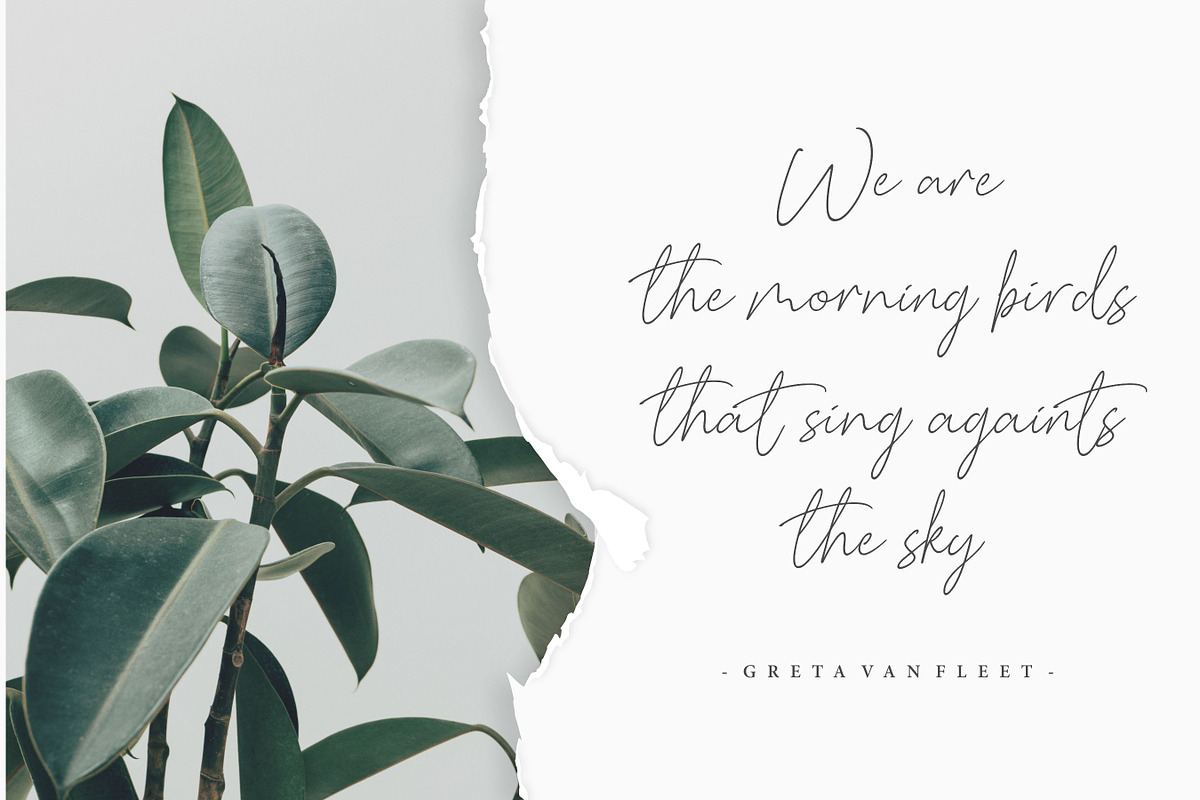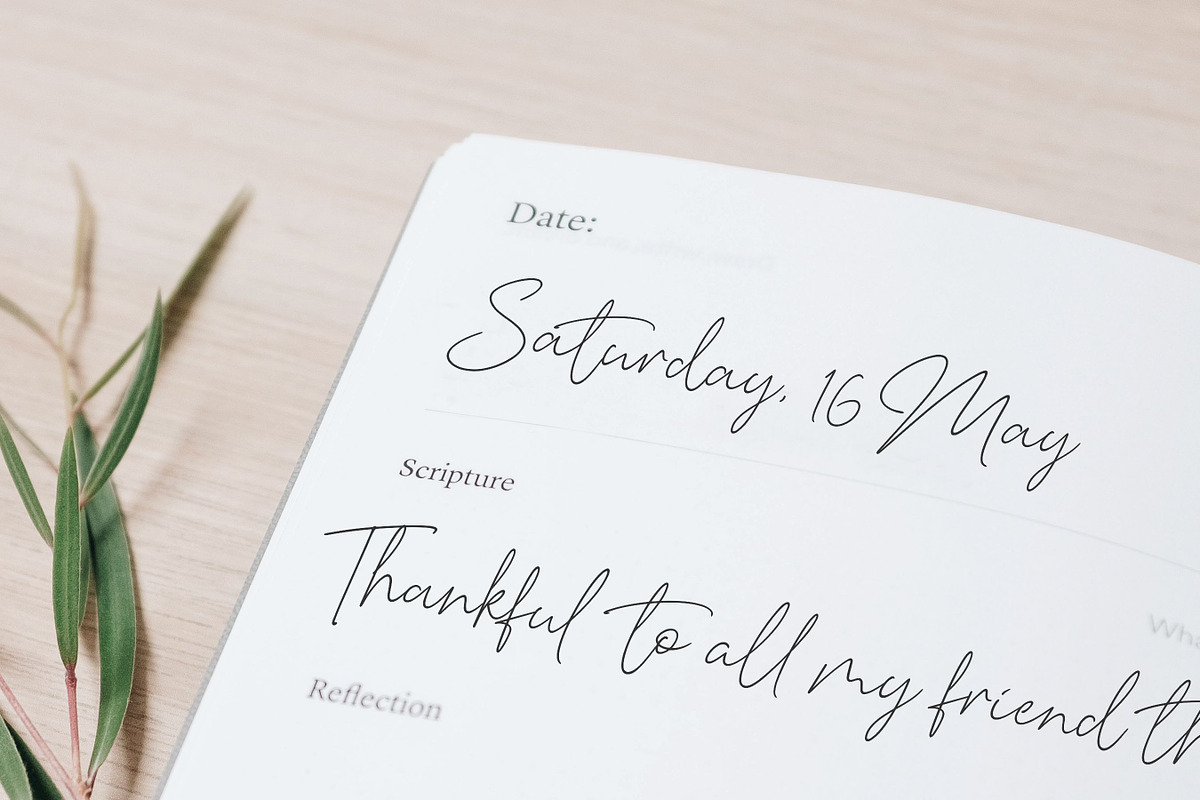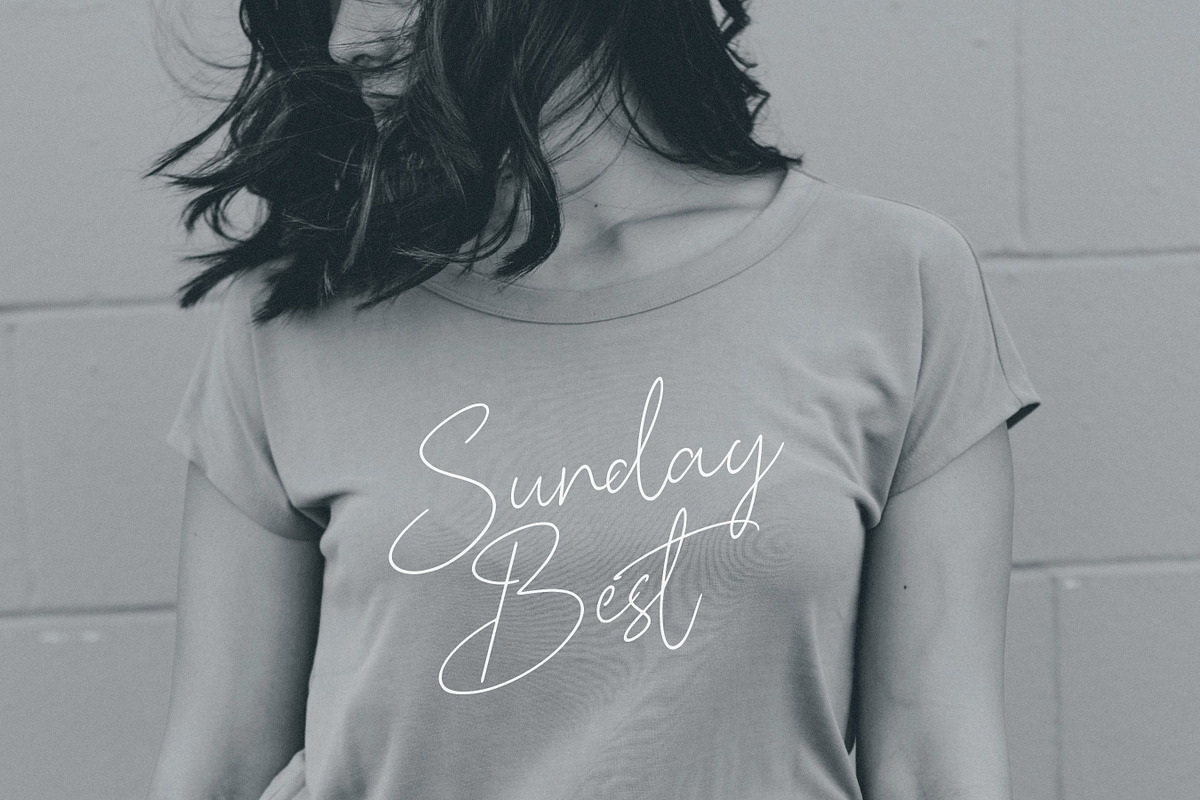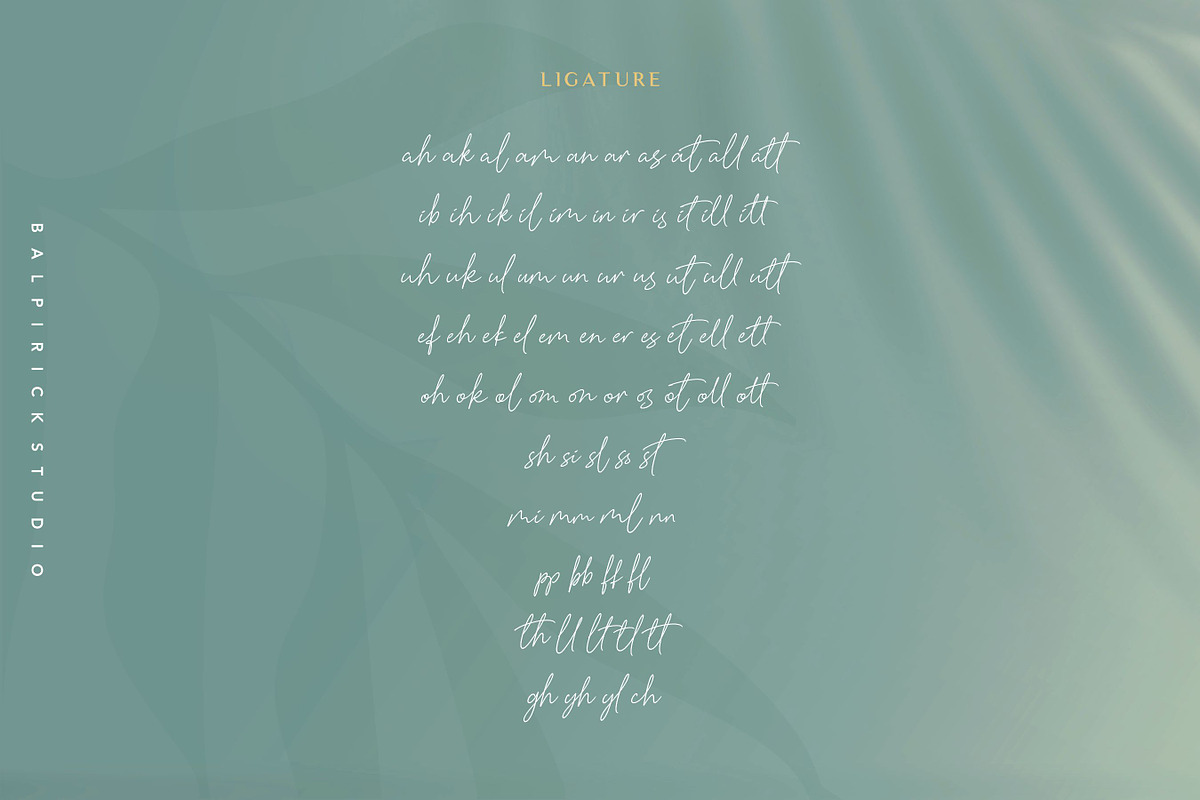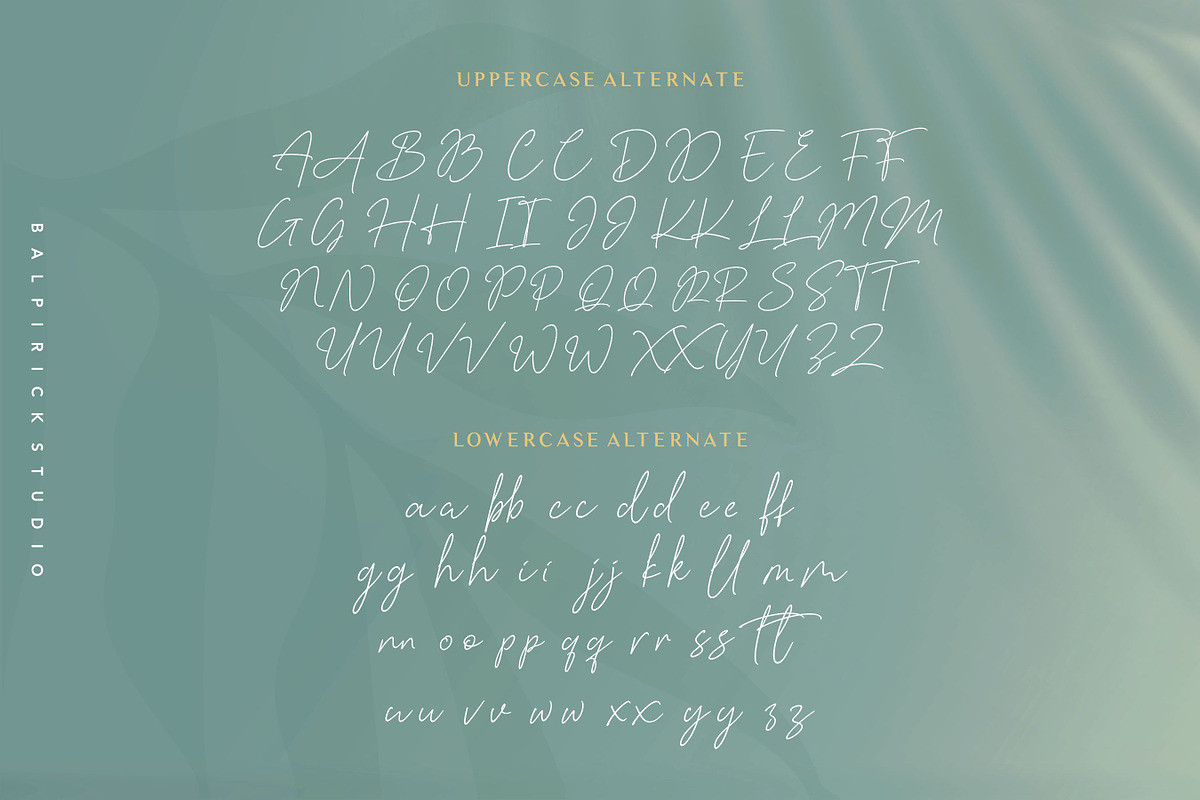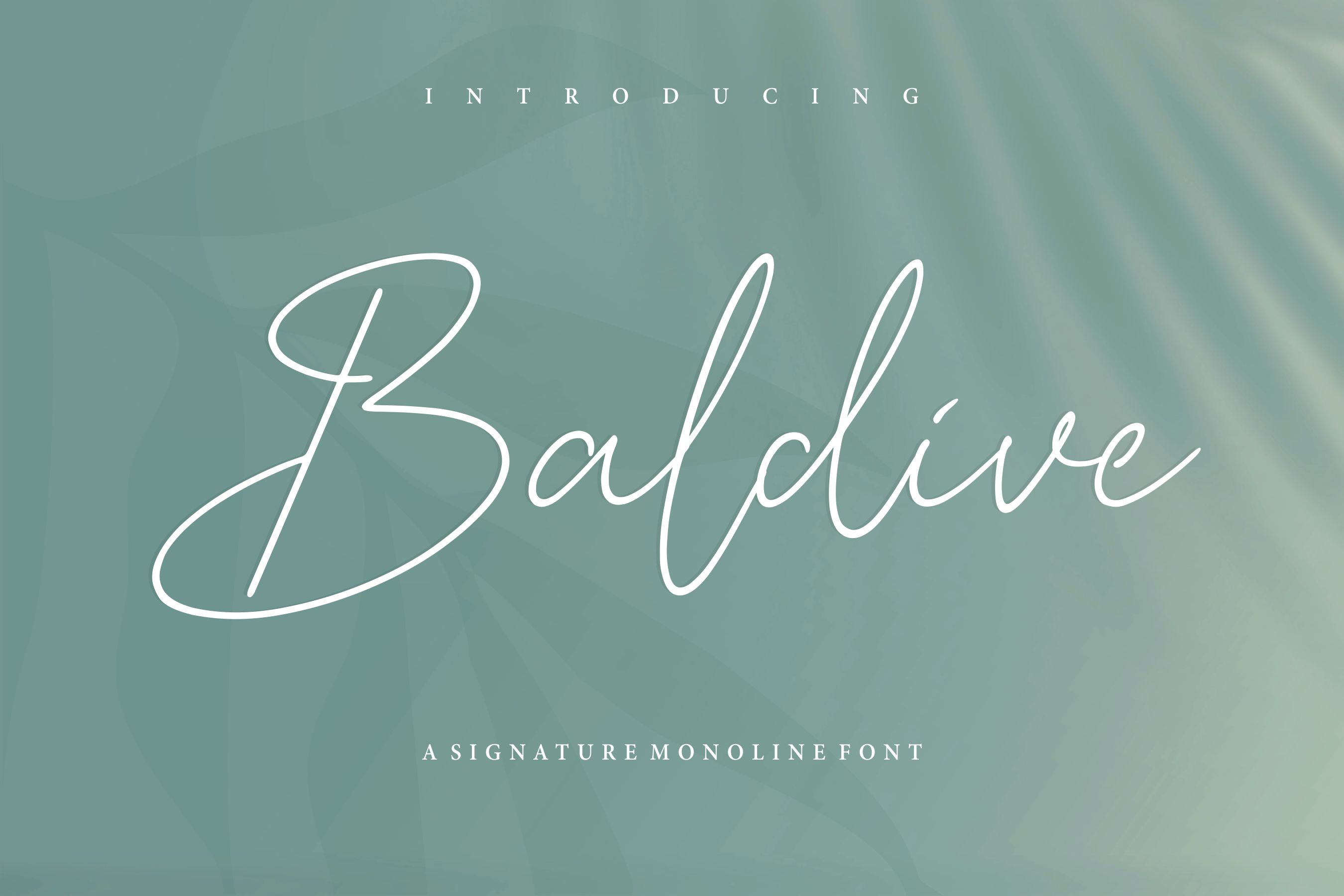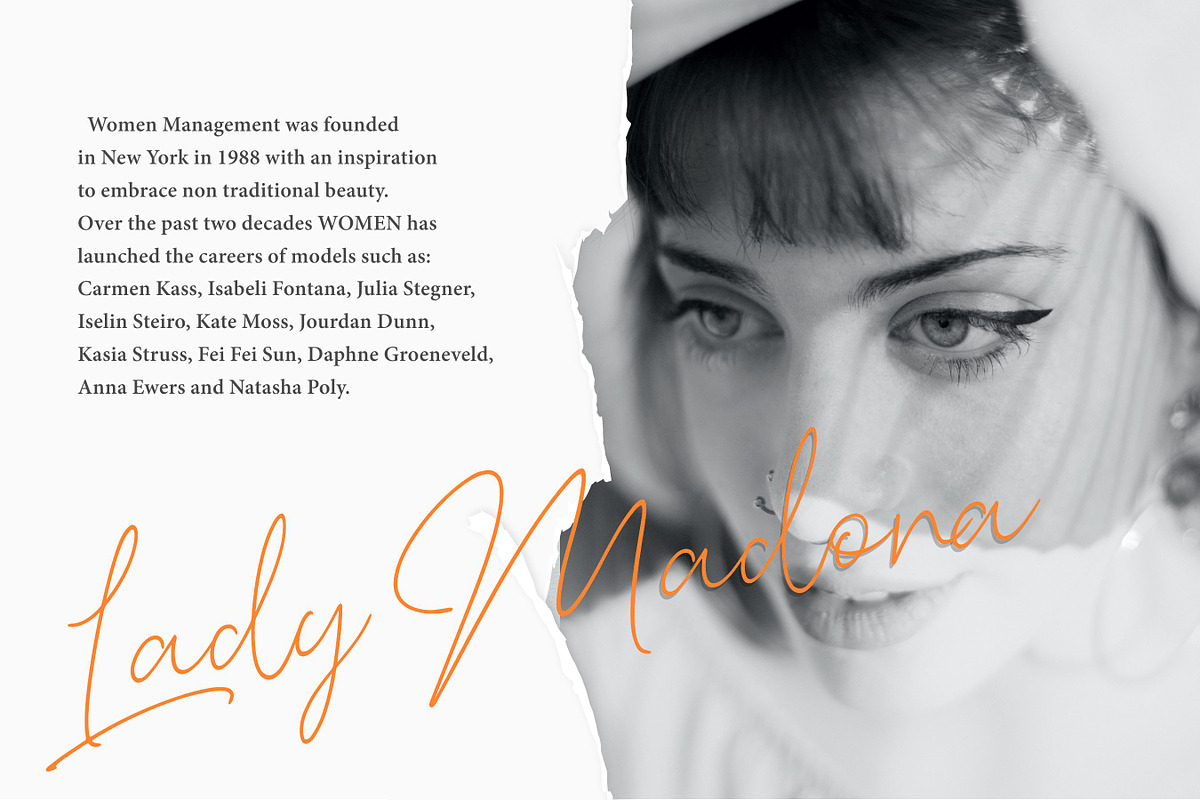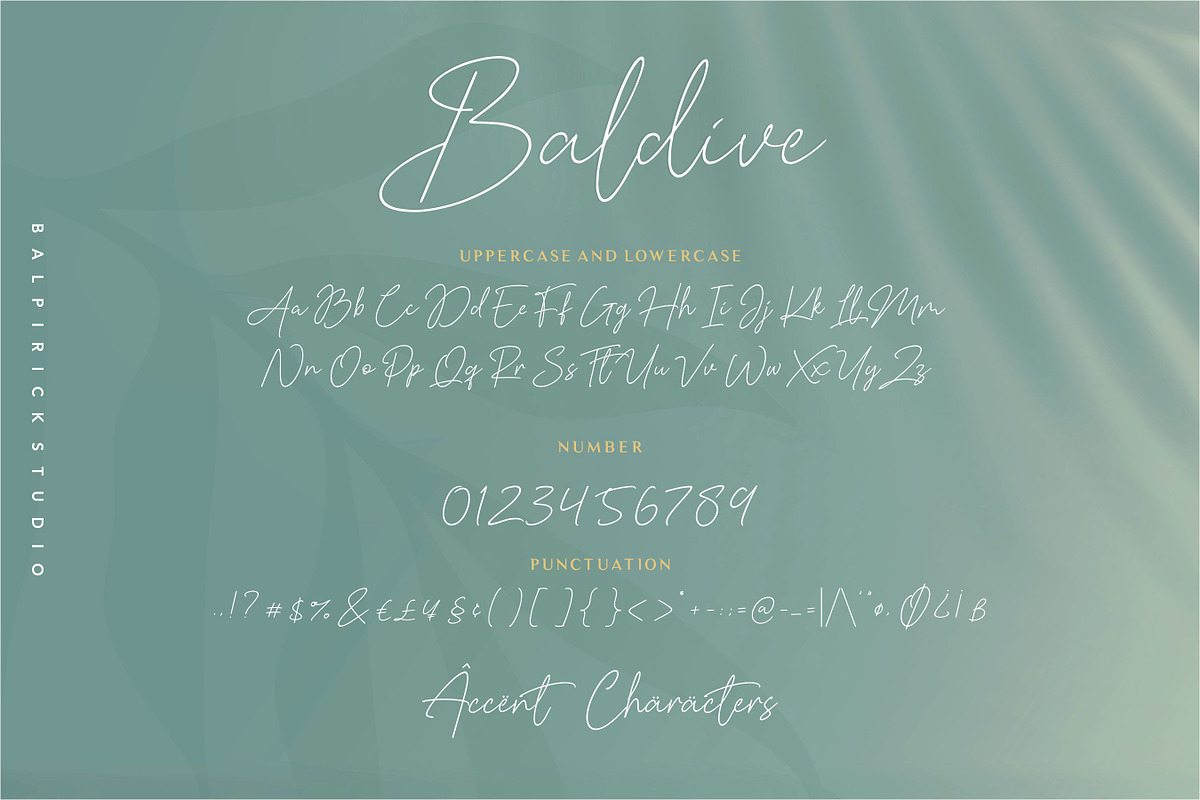
Baldive - a Signature Monoline Font
Proudly Present, Baldive Font
Baldive is a magical handwritten font carefully created with a touch of elegance. It features an incredibly classic style, while still keeping a friendly feel. This font is the perfect font for making original and outstanding designs.
- also multilingual support
- Uppercase Alternate
- Lowercase Alternate